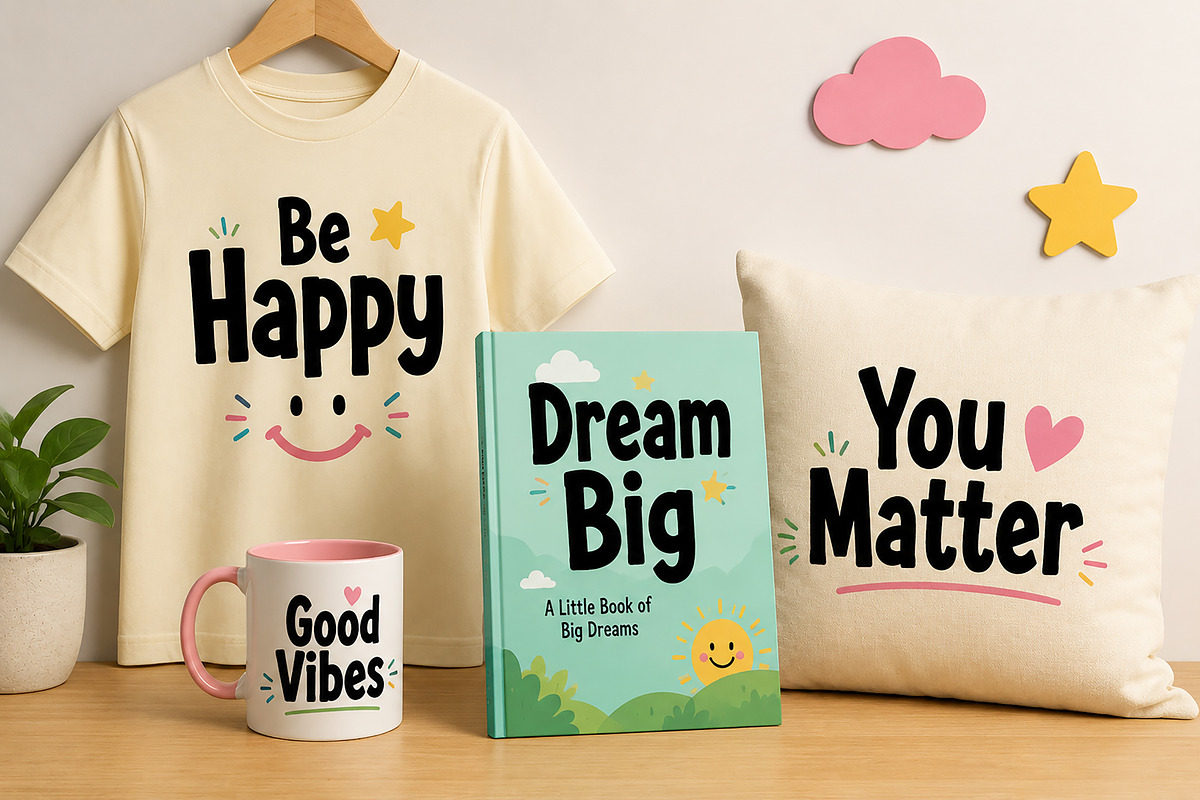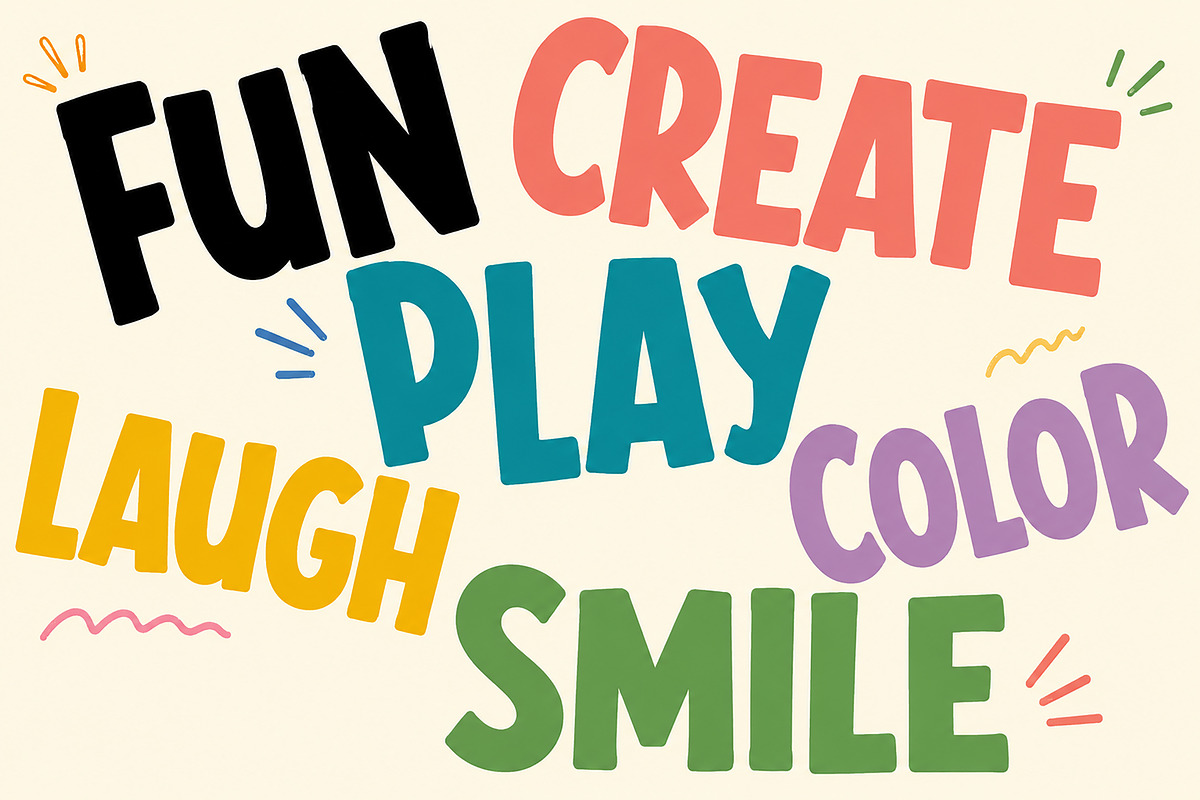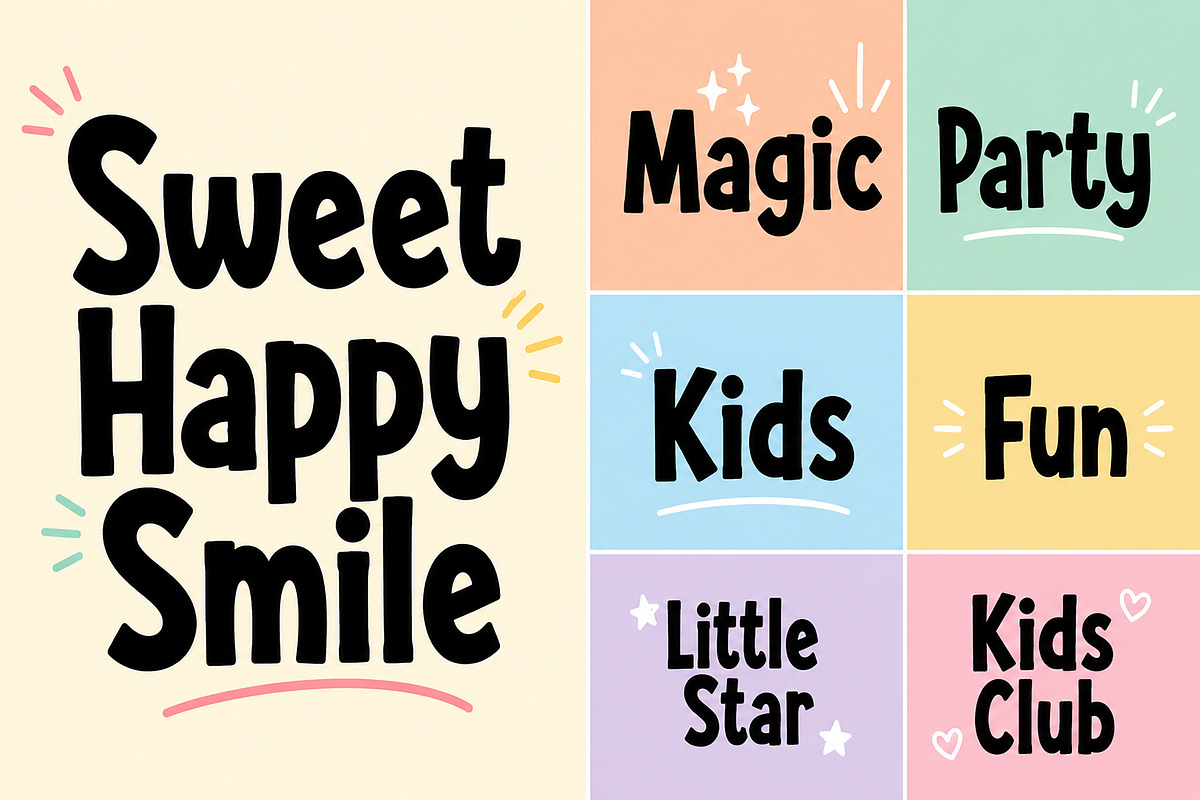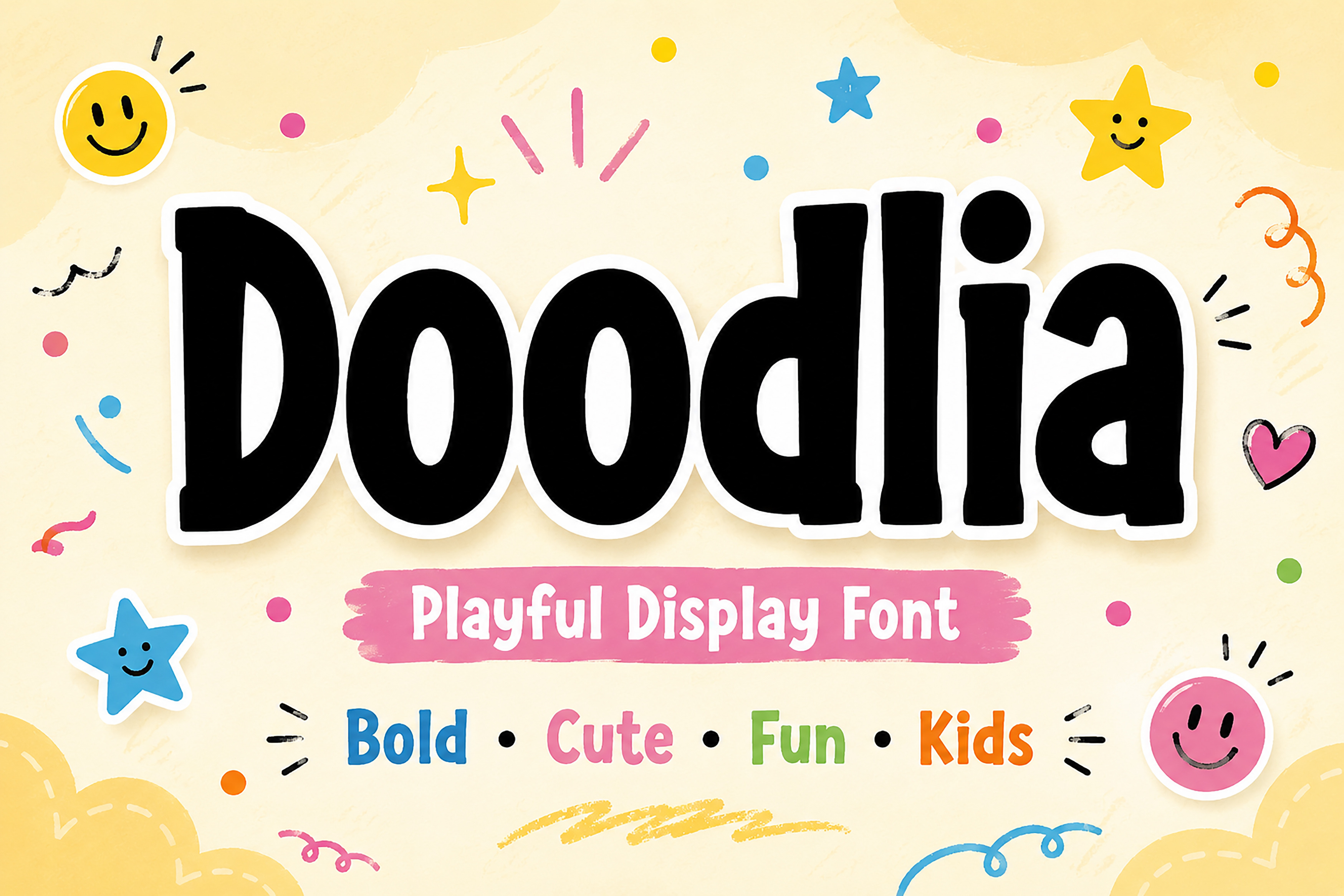
Doodlia – Playful Display Font
Bring fun, creativity, and personality to your designs with Doodlia, a bold and playful display font made to capture attention. Featuring chunky letterforms, rounded edges, and a handcrafted feel, Doodlia is perfect for cheerful designs that need a friendly and energetic touch.
Whether you're designing for kids, creating eye-catching branding, or crafting colorful social media graphics, this font adds instant charm and excitement to every project.
Make every design brighter, friendlier, and more memorable with Doodlia—the perfect playful display font for fun and creative projects.